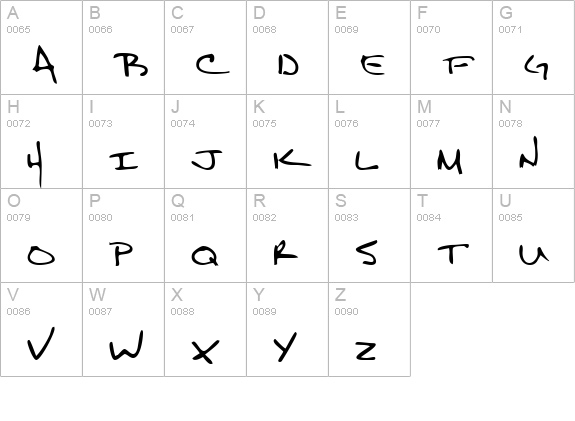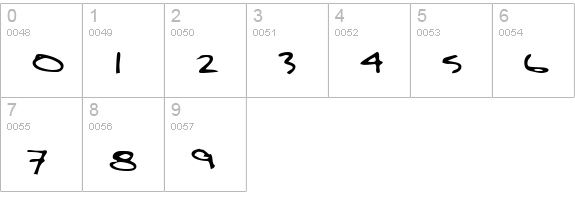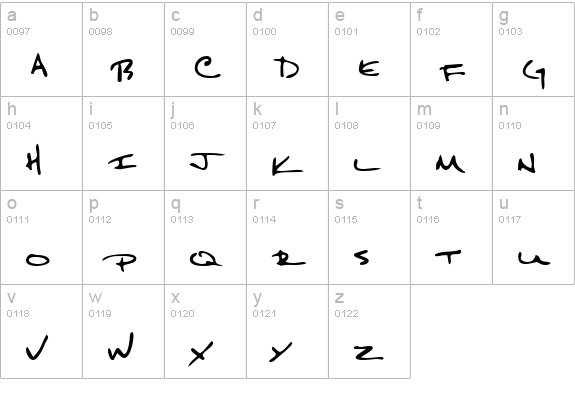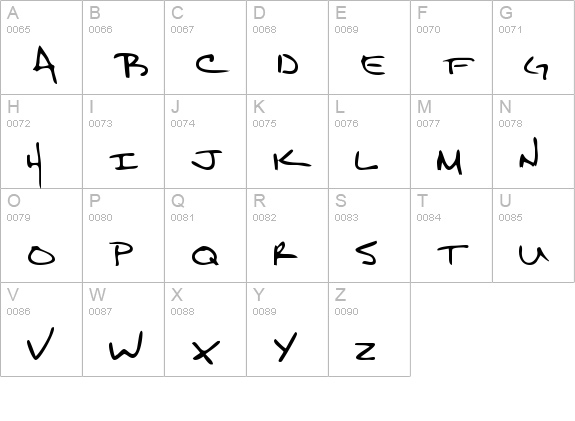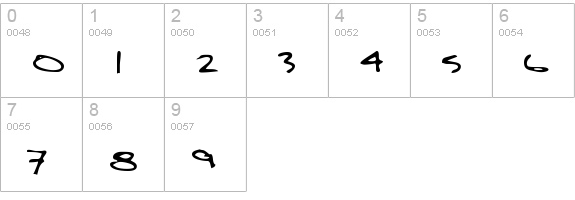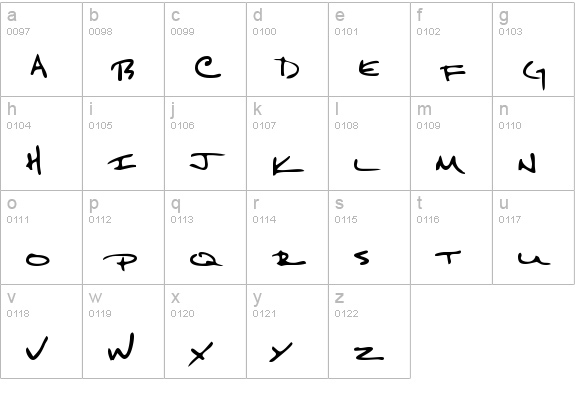
KeithsHand Regular Font Details
KeithsHand Regular is the standard, neutral variant in the KeithsHand typeface family \xE2\x80\x94 well suited to general body text, paragraphs, and standard typographic work.
KeithsHand Regular font is a charming and versatile typeface that exudes a sense of warmth and friendliness. Its smooth curves and slightly irregular letterforms give it a unique and hand-drawn appearance, perfect for adding a personal touch to any design project. This font is ideal for a variety of uses, from logo design and branding to invitations, greeting cards, and social media graphics. Its legibility and readability make it a popular choice for both print and digital applications. What sets KeithsHand Regular font apart is that it is freely available to download at FontsMarket.com. This means that you can use this font without any restrictions or limitations, whether it's for personal or commercial use. This accessibility allows designers, creatives, and enthusiasts alike to easily incorporate this delightful font into their projects, without having to worry about any additional costs. The versatility and accessibility of KeithsHand Regular font make it a must-have in any designer's toolkit. Its friendly and approachable aesthetic adds a touch of personality to any project, making it stand out from the crowd. So why wait? Head over to FontsMarket.com and download KeithsHand Regular font today, and let your creativity flow freely.